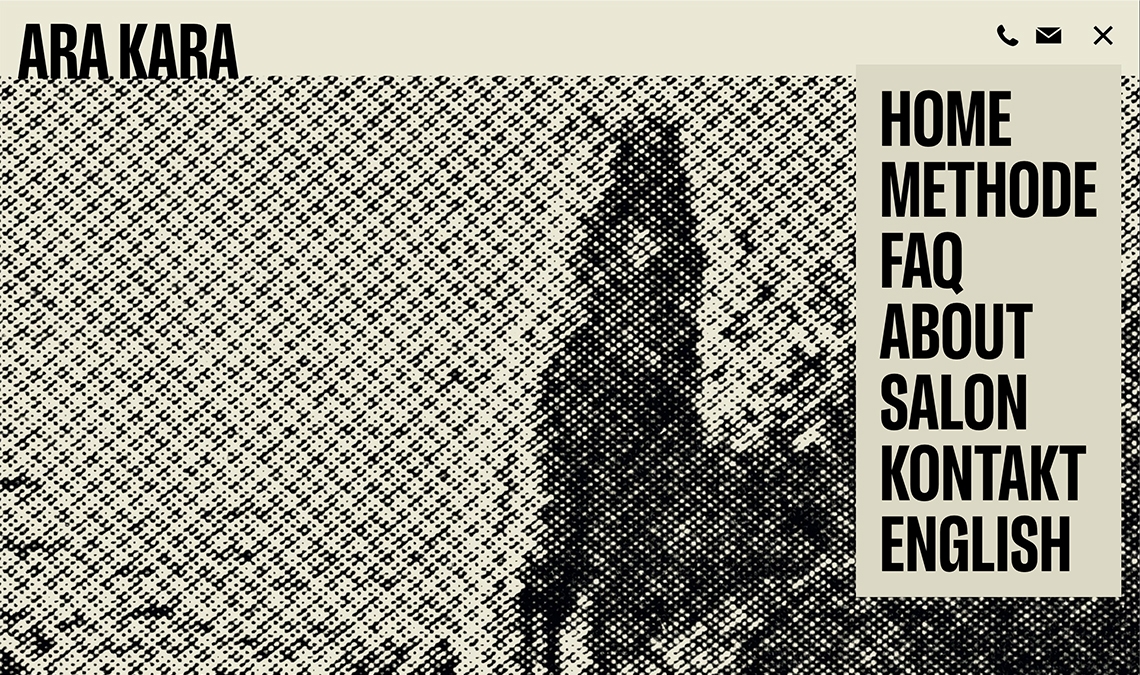
Lektorat in Ara Kara therapy website
Florian Fecher’s Lektorat in use in a personal therapy and psychology website.
The German design studio Cerno Design has used Lektorat to create an engaging personal site for Munich-based therapist Ara Kara. The website combines Lektorat Condensed for titles and large texts, with Lektorat Text for paragraphs. It’s not necessary to have all the bells and whistles on a website meant to be credible, calming, and reassuring; simple, straightforward help maintains professionalism and ensures the website visitor knows where they are and what comes next. So Lektorat’s emotive family thrives in this monochromatic design and helps to create a personable, memorable site.
Lektorat is Florian Fecher’s first design and the recipient of the 2019 Gerard Unger Scholarship. Lektorat includes six concise text styles and 42 display styles (or four variable fonts) to captivate, educate, and motivate within any editorial purpose.